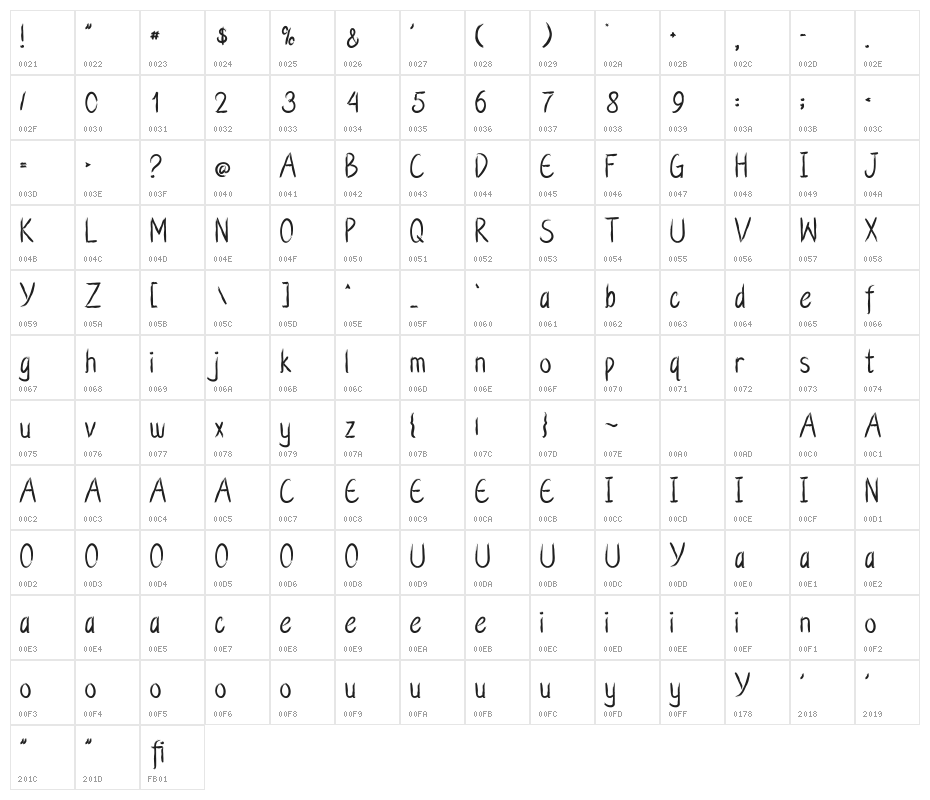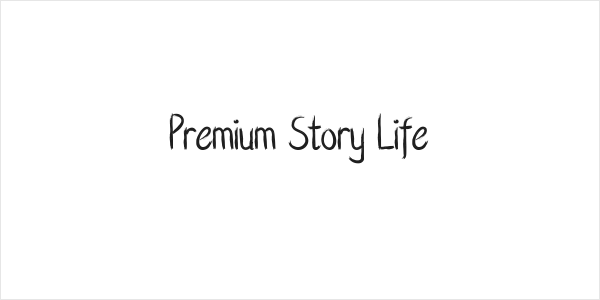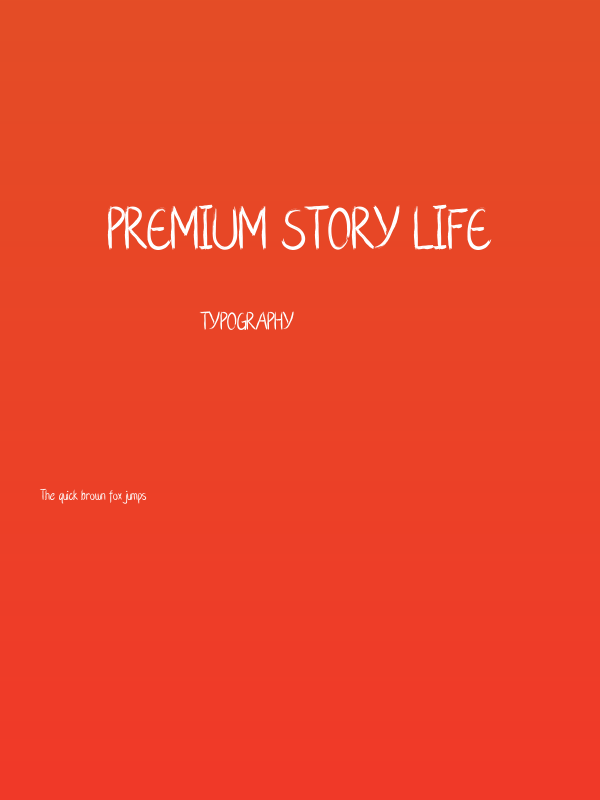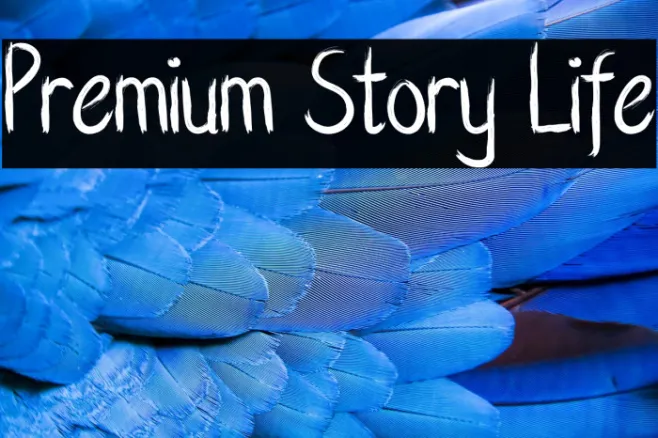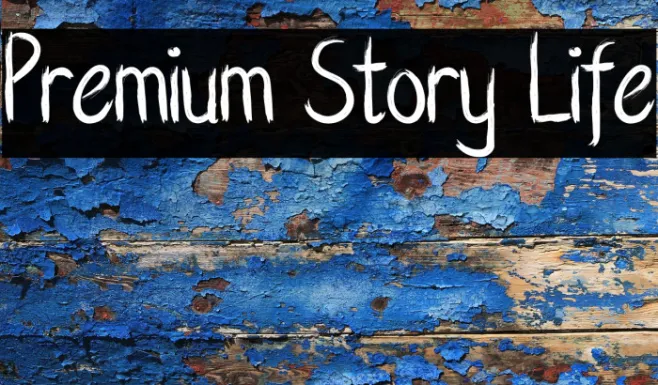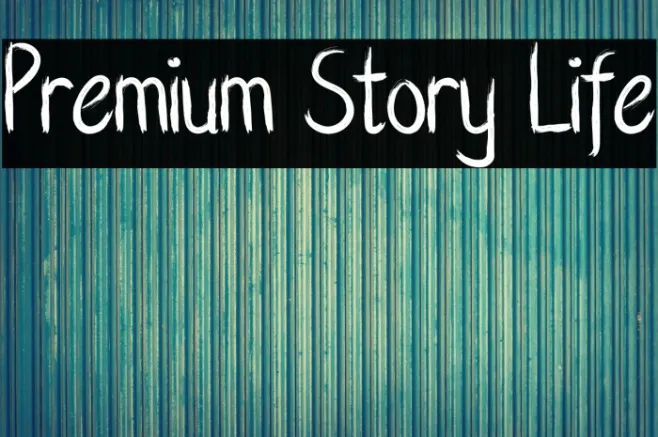
Premium Story Life Font
Premium Story Life Description
This font exudes a hand-drawn, artistic flair with its brush-like strokes and organic flow. The uppercase and lowercase letters maintain a consistent style, characterized by uneven edges and varying line thickness, giving it a dynamic and lively appearance. The numerals and special characters follow the same expressive style, making the font suitable for creative and informal applications. Its unique charm lies in the imperfect, human touch that adds personality and warmth to any design.
| Overall Style | Artistic |
| Use Case | Logos, Posters, Invitations |
| Proposed Projects | Ideal for artistic projects, branding, posters, and invitations that require a personal and creative touch. |